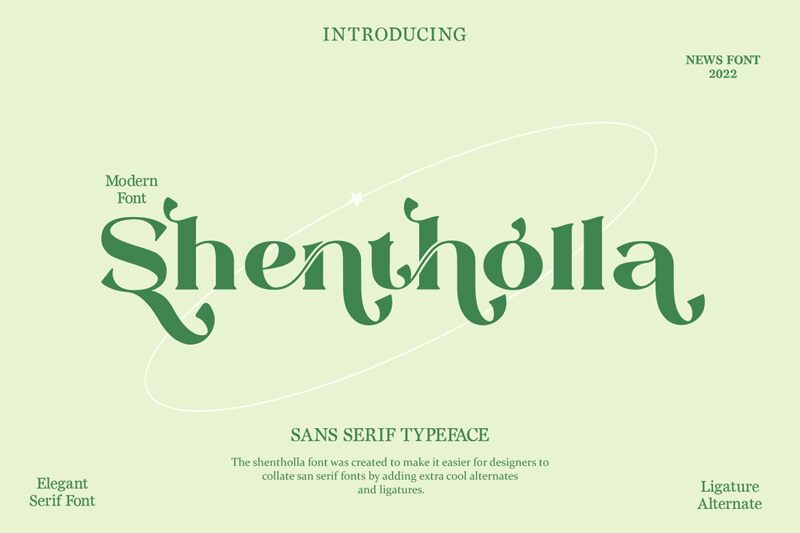
Shentholla
Shentholla font by liart type is a classical serif font with an ornamental, traditional flair. It features elegant letterforms that effortlessly convey sophistication and class. Shentholla combines the enduring elegance of serif fonts with remarkable usability for exceptional design results every time.
This free serif font offers endless possibilities for designers working on print and digital projects alike including magazines, branding, logo design, websites, or social media content. Use it for packaging design, product labels, posters, program booklets, visiting cards or certificates.